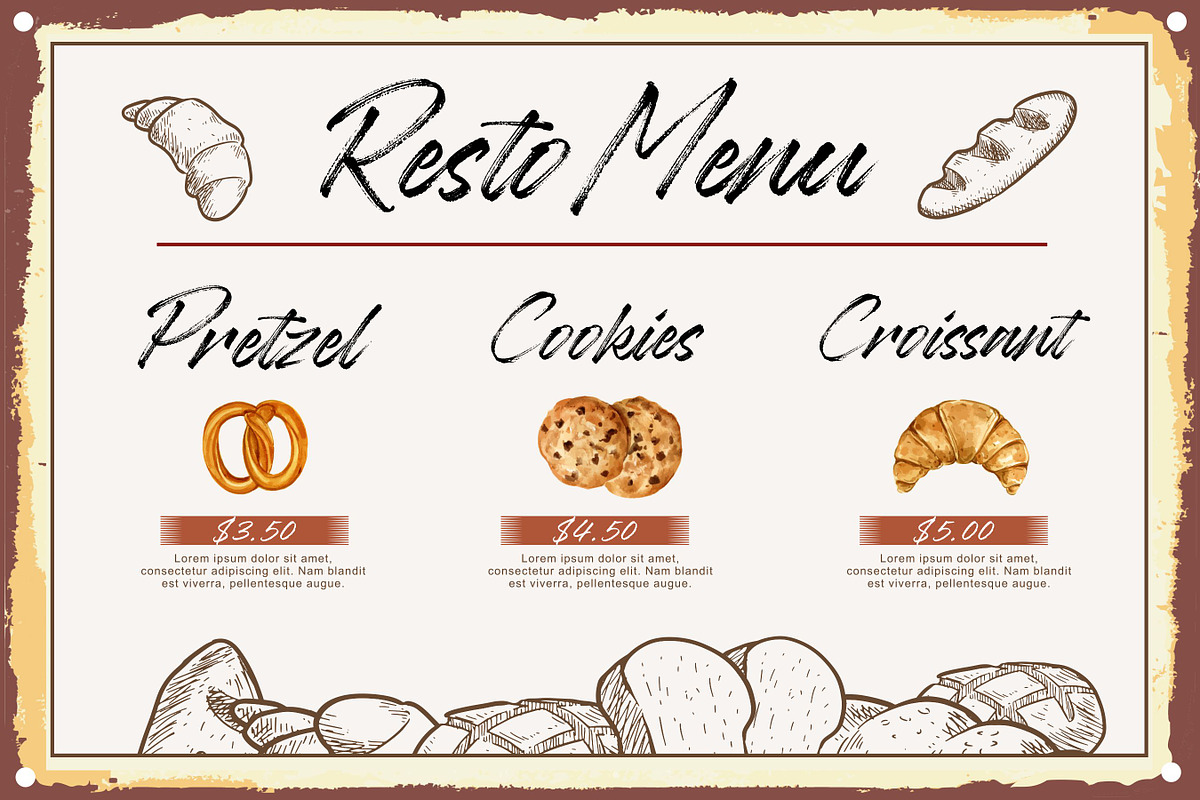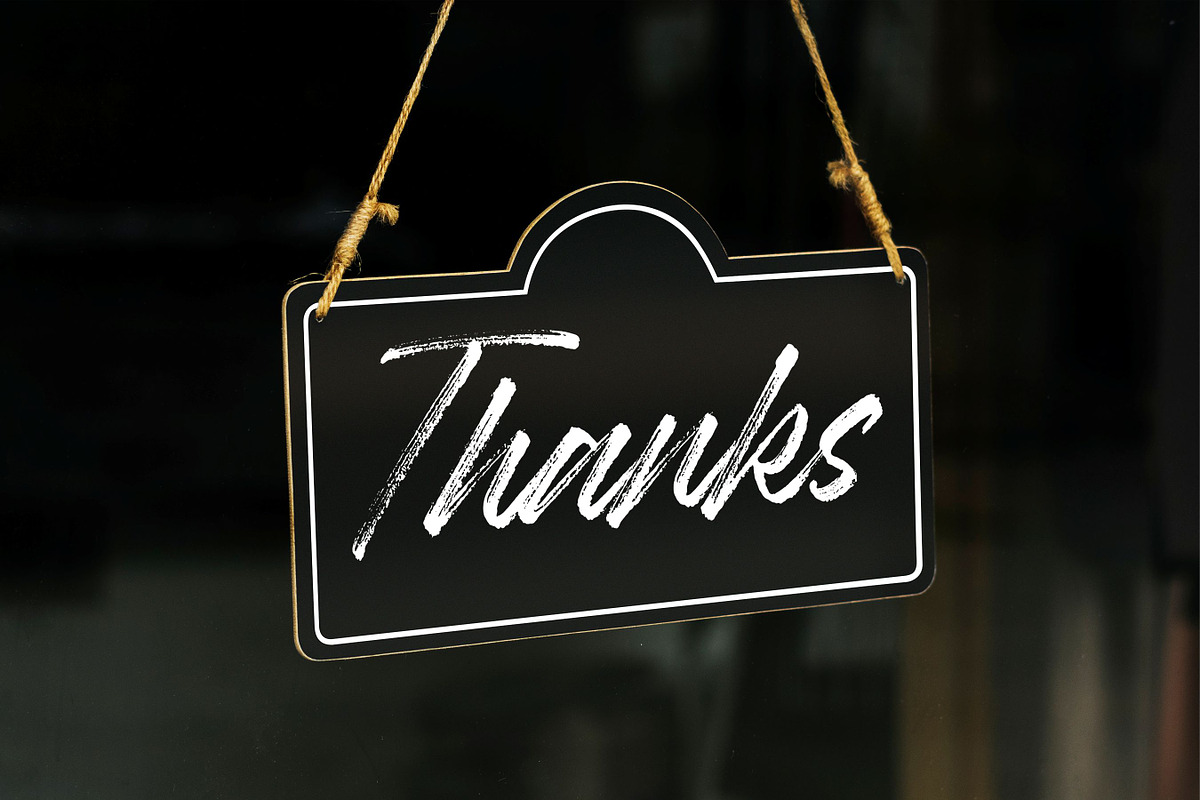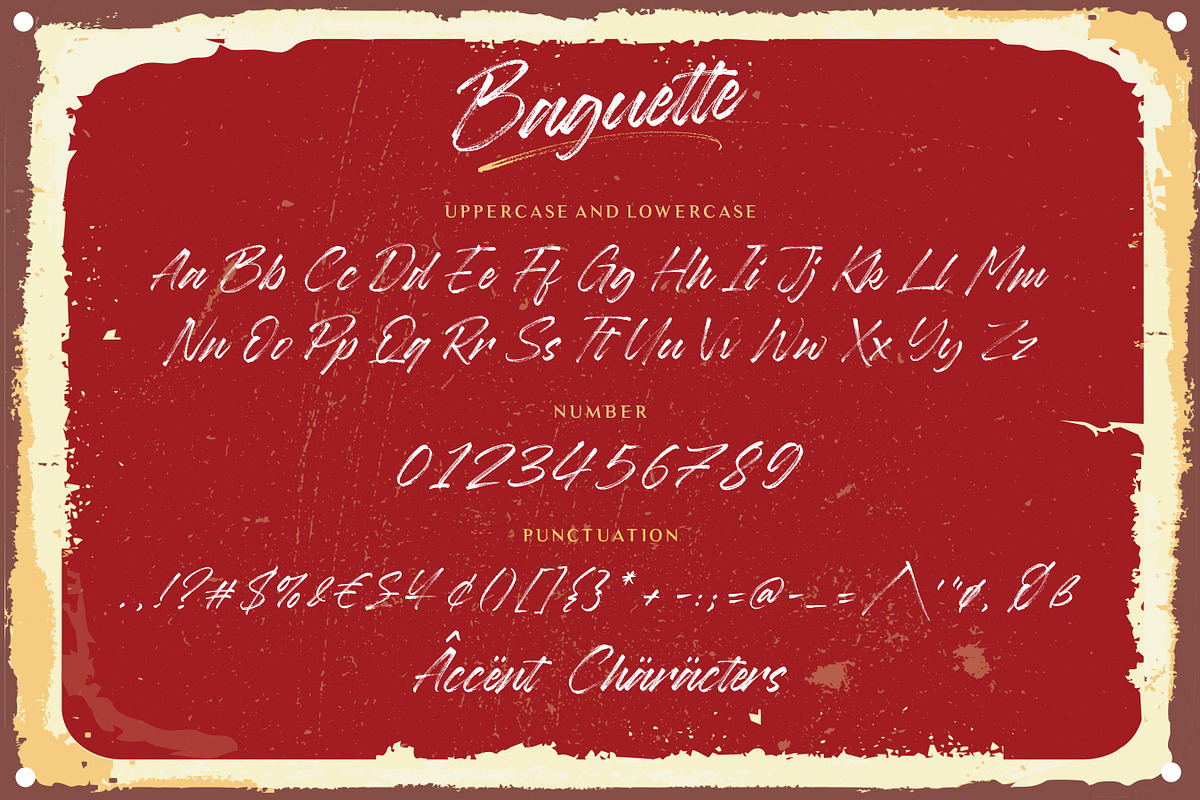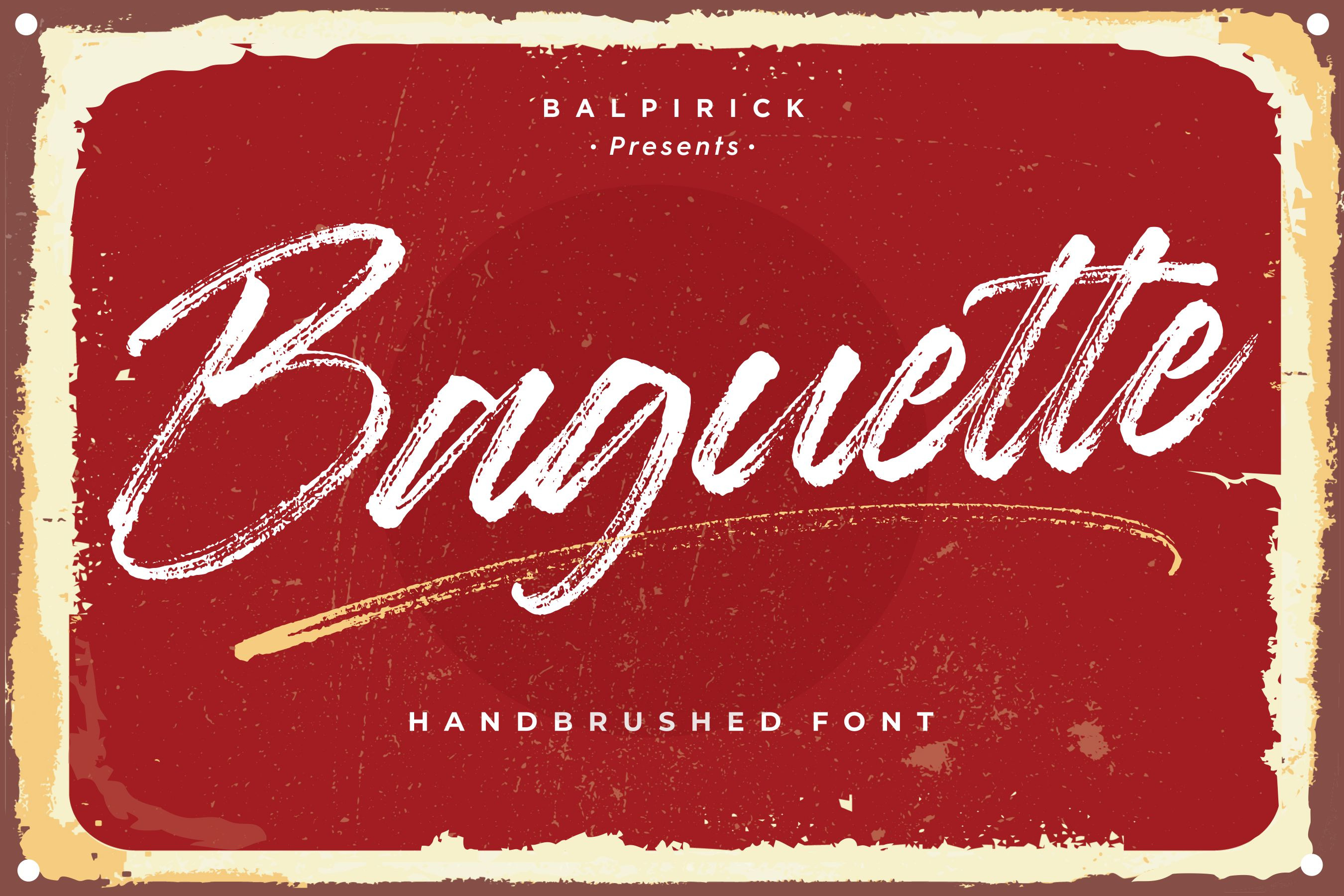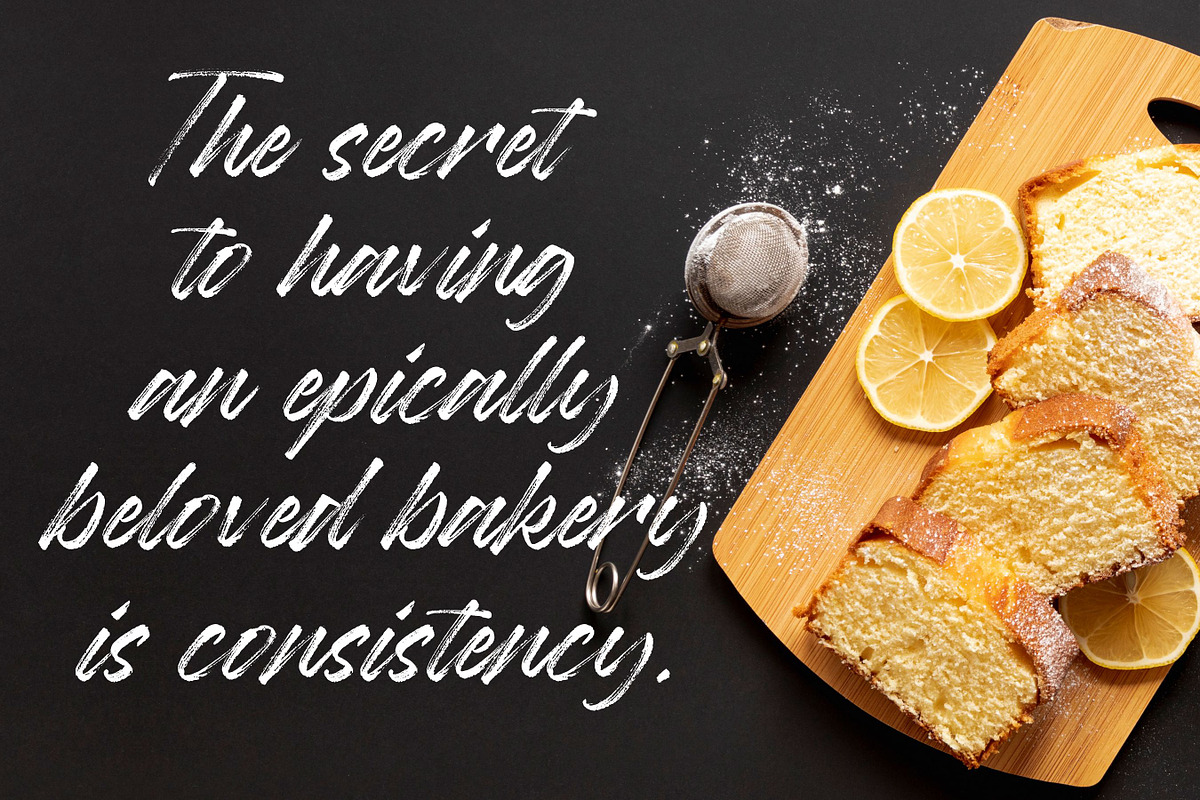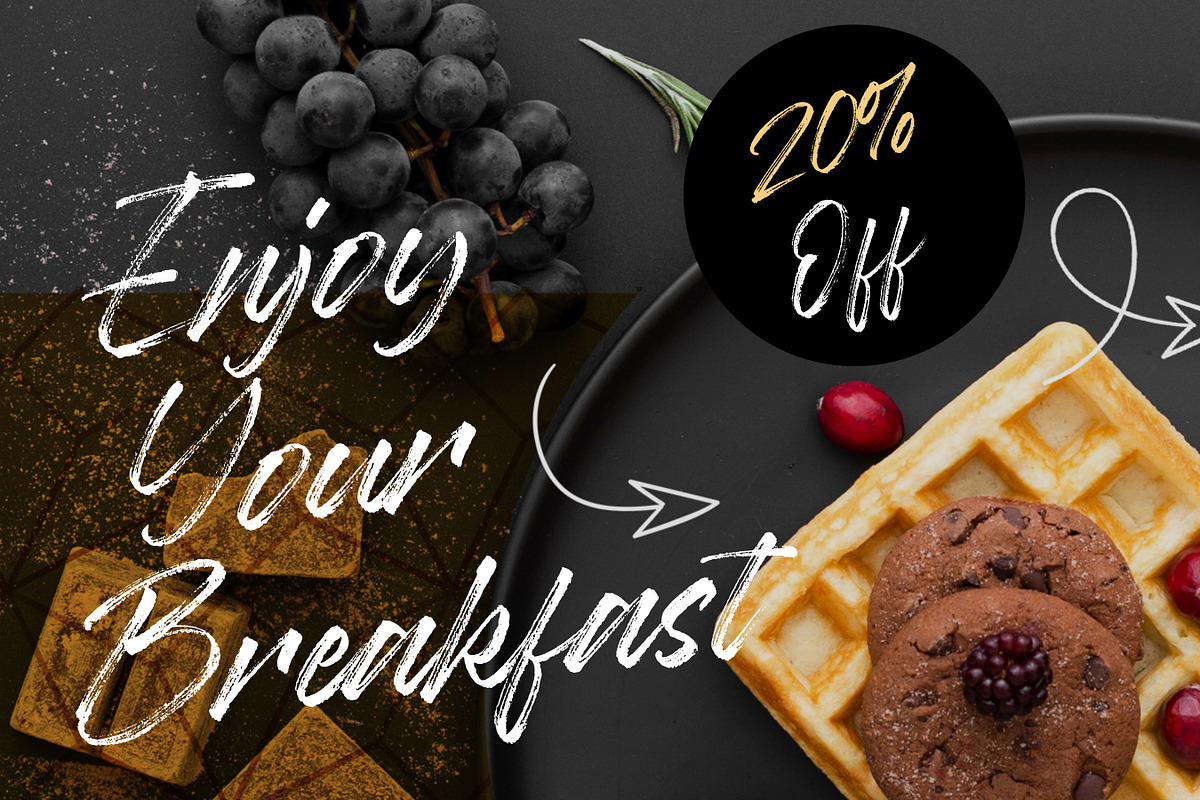
Baguette - Handbrushed Font
Proudly Present, Baguette Font
Baguette is a natural hand-brushed font. It’s perfect for logos, greeting cards, invitations, stationery, social media posts and much more! Baguette will look outstanding in any context, whether it’s being used on busy backgrounds or as a standalone headline!